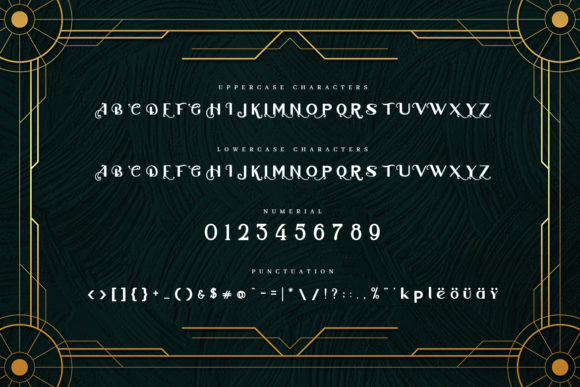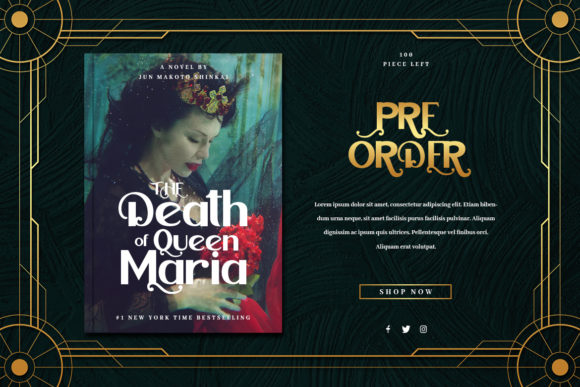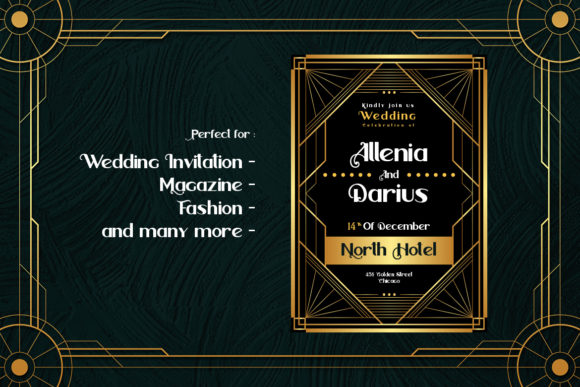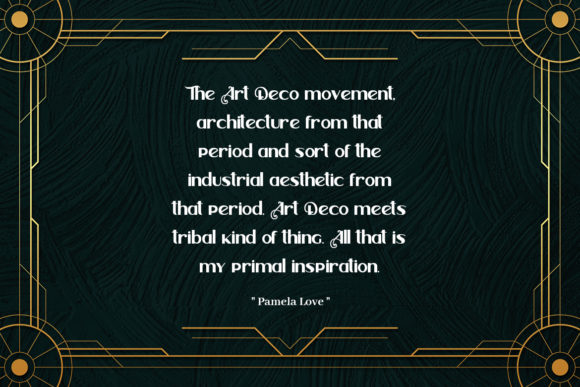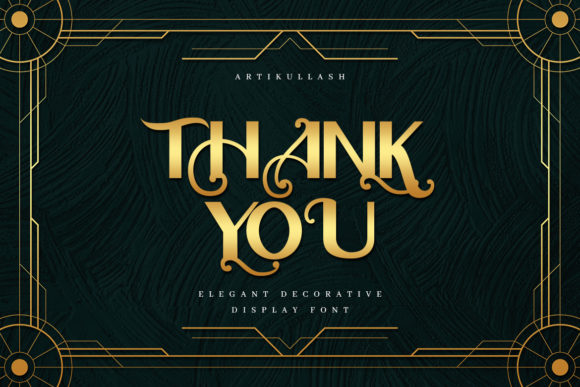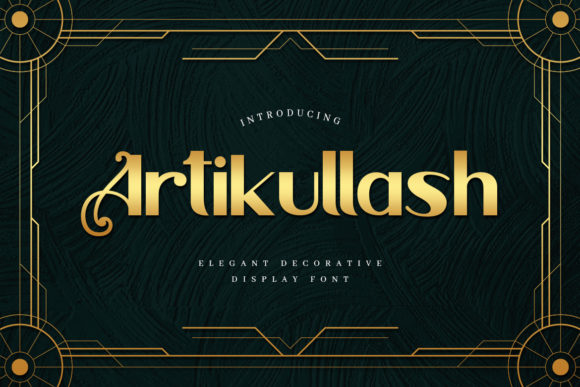
Introducing Artikullash Font: Elevate Your Designs with Bold Elegance
Are you tired of using the same old fonts in your designs? Look no further! Artikullash Font is here to revolutionize the way you create. This bold and elegant display font is masterfully designed to become a true favorite among designers and crafters. With Artikullash, you can bring each of your creative ideas to the highest level and make your designs stand out from the crowd.
The Story Behind Artikullash Font
Artikullash Font is a carefully crafted typeface that exudes sophistication and style. Its unique design elements make it perfect for a wide range of creative projects, from branding and advertising to packaging and digital media. Whether you’re a professional designer or a crafty DIY enthusiast, Artikullash Font is sure to become an essential part of your design toolkit.
Key Features of Artikullash Font
- Bold and Elegant Design: Artikullash Font boasts a bold and elegant design that commands attention and makes a lasting impression.
- High Versatility: This font is perfect for a wide range of creative projects, from headings and titles to logos and branding.
- Easy to Read: Despite its bold design, Artikullash Font remains easy to read, making it perfect for use in both digital and print materials.
- Unique Character: Artikullash Font has a unique character that sets it apart from other fonts, making it perfect for designers who want to add a touch of personality to their work.
Why Choose Artikullash Font?
So, why choose Artikullash Font over other fonts on the market? Here are just a few reasons:
- Stand Out from the Crowd: With Artikullash Font, you can create designs that stand out from the crowd and make a lasting impression on your audience.
- Save Time: This font is easy to use and works seamlessly with a wide range of design software, saving you time and effort.
- Professional Results: Artikullash Font is designed to produce professional results, making it perfect for designers who want to create high-quality work.
How to Use Artikullash Font
- Experiment with Different Sizes: Artikullash Font looks great in a wide range of sizes, from small headings to large titles.
- Play with Colors: This font works well with a wide range of colors, so don’t be afraid to experiment and find the perfect combination for your design.
- Pair it with Other Fonts: Artikullash Font works well with a wide range of other fonts, so try pairing it with some of your favorites to create a unique look.
In conclusion, Artikullash Font is a bold and elegant display font that is sure to become a favorite among designers and crafters. With its unique design elements, high versatility, and ease of use, this font is perfect for a wide range of creative projects. Whether you’re looking to create professional results or simply want to add a touch of personality to your work, Artikullash Font is the perfect choice.